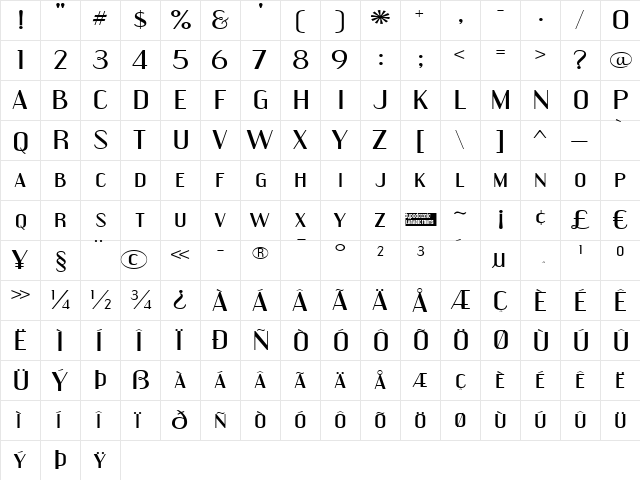
Engebrechtre Expanded Regular
Design Context for Engebrechtre Expanded Typeface
Engebrechtre Expanded is a composed and adaptable typeface that performs quietly and consistently across a wide range of design contexts.